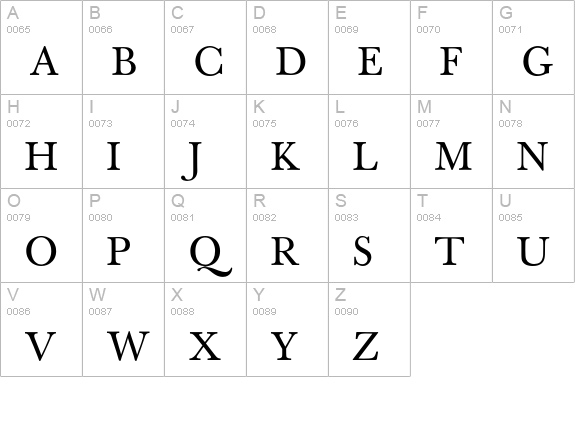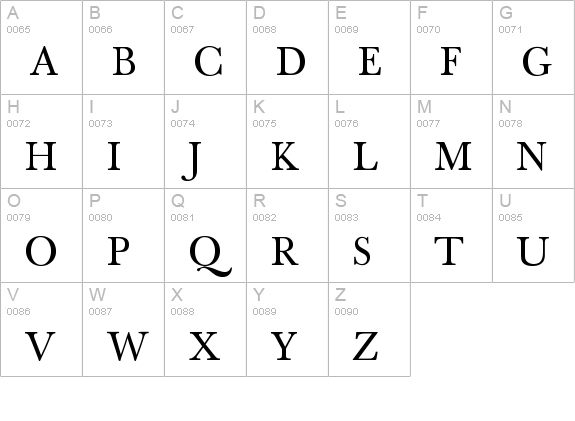
Baskerville Book BQ Regular OsF Font Details
Baskerville Book BQ Regular OsF is a comfortable, highly readable variant in the Baskerville typeface family \xE2\x80\x94 well suited to long-form body text, articles, and editorial content.
Baskerville Book BQ Regular OsF font is a timeless and elegant typeface that exudes sophistication and class. With its balanced letterforms and classic serifs, this font is perfect for conveying a sense of tradition and professionalism in your design projects. The open-source format of Baskerville Book BQ Regular OsF means that it is freely available for download at FontsMarket.com, allowing you to access this high-quality font without any cost. Add a touch of refinement to your work with Baskerville Book BQ Regular OsF and elevate your designs to the next level.